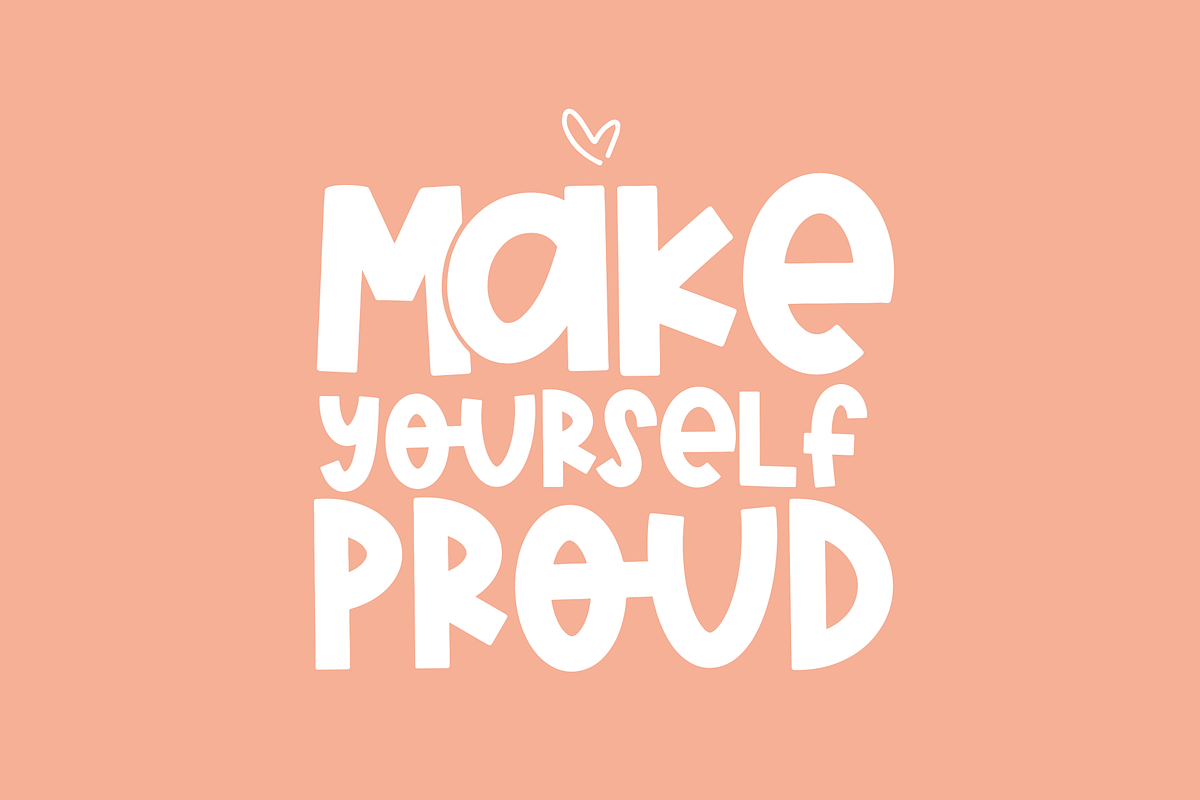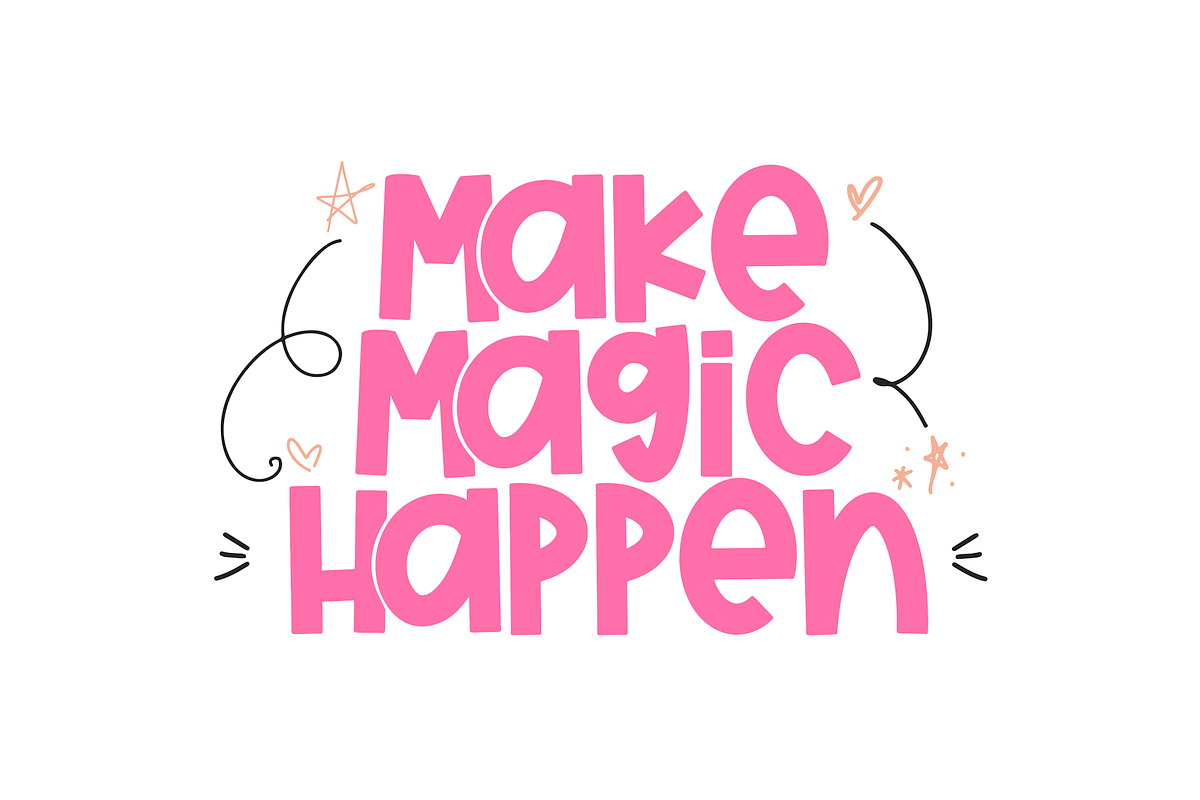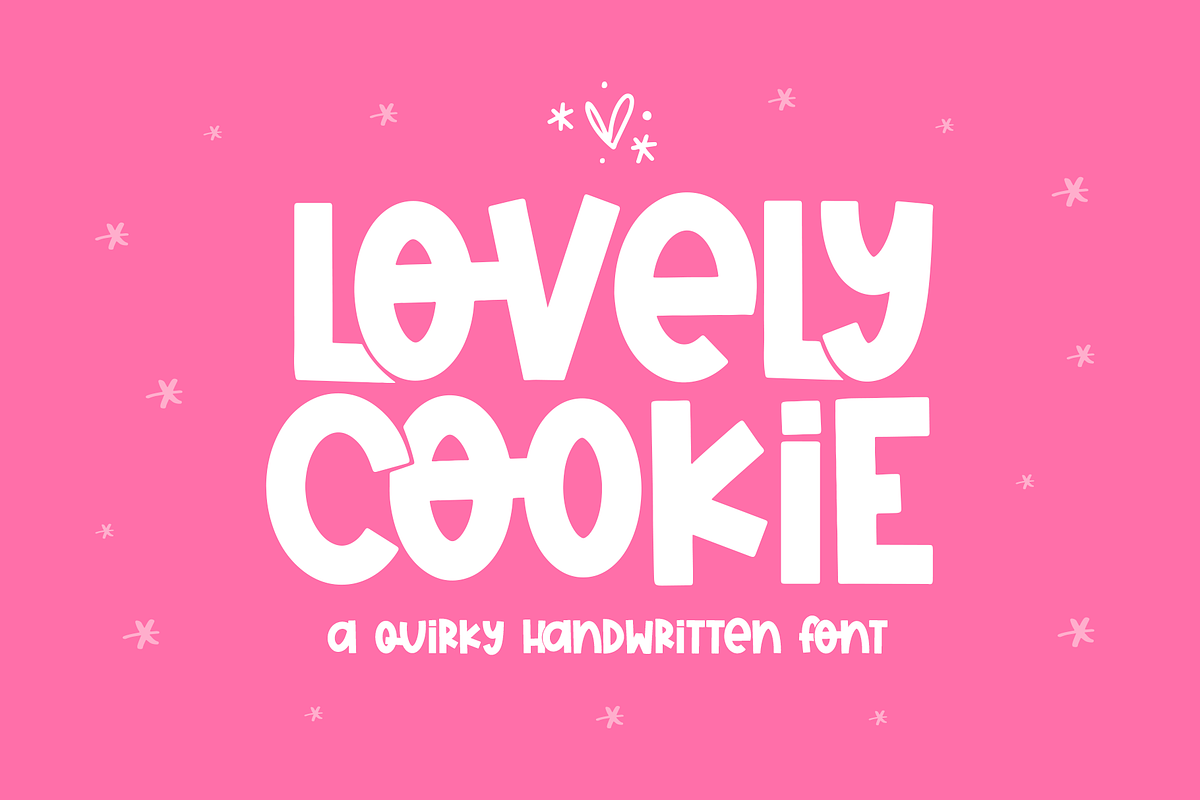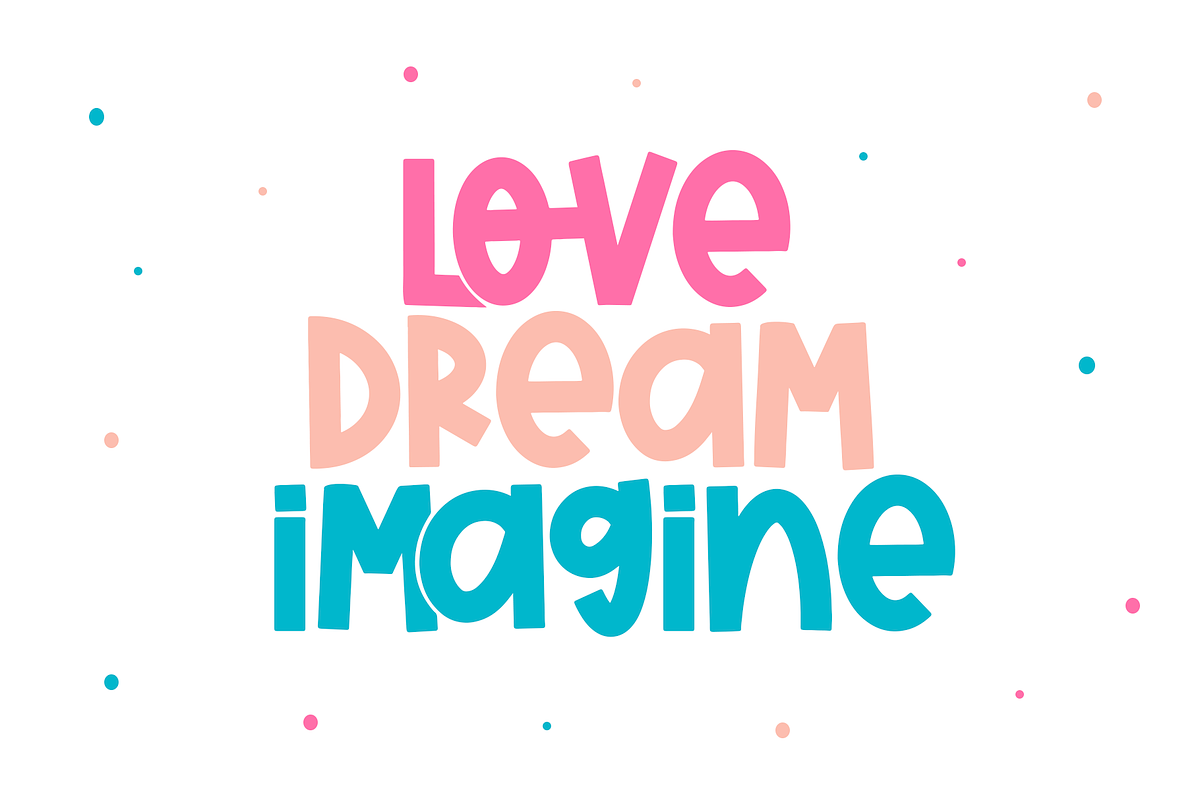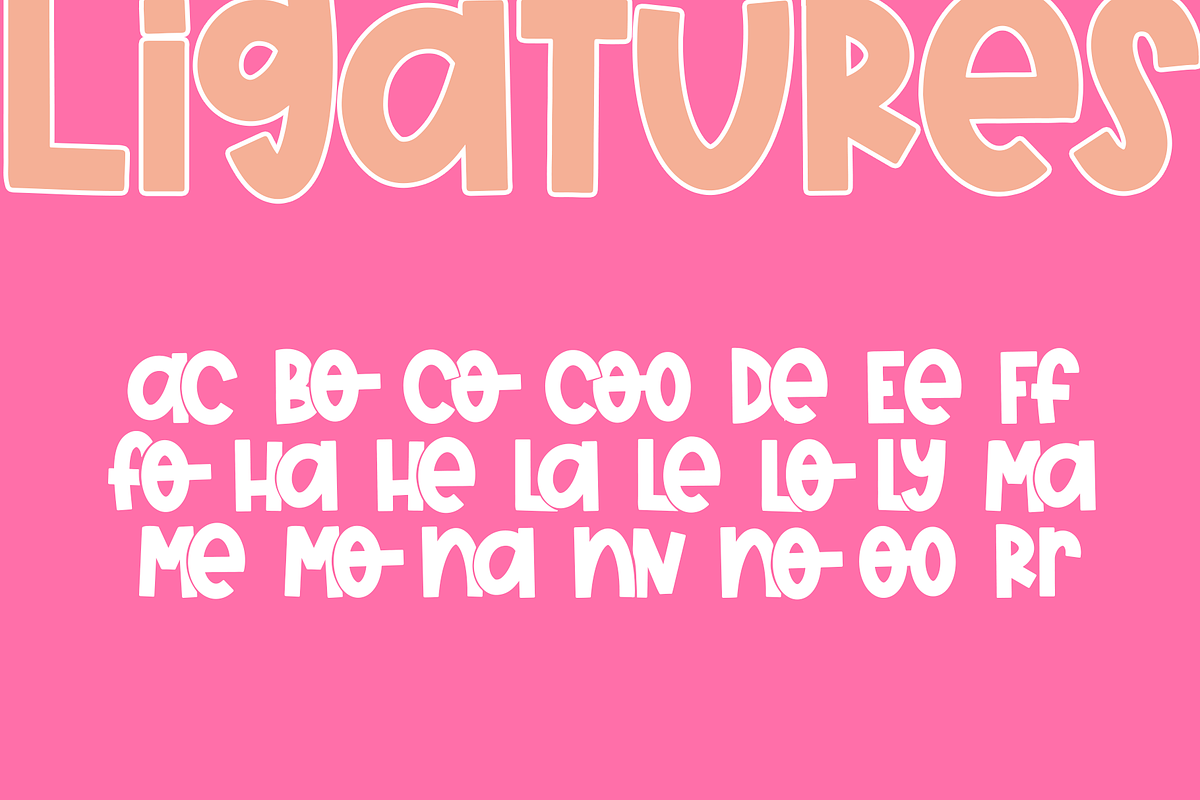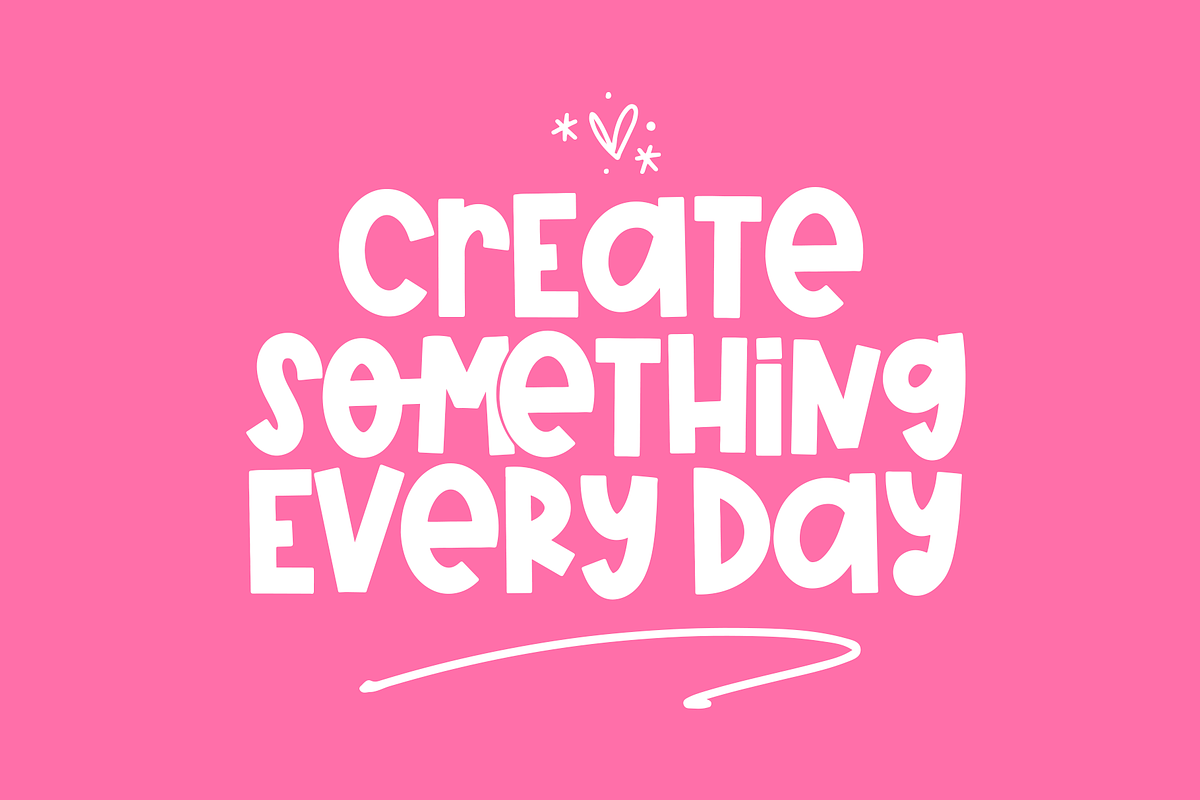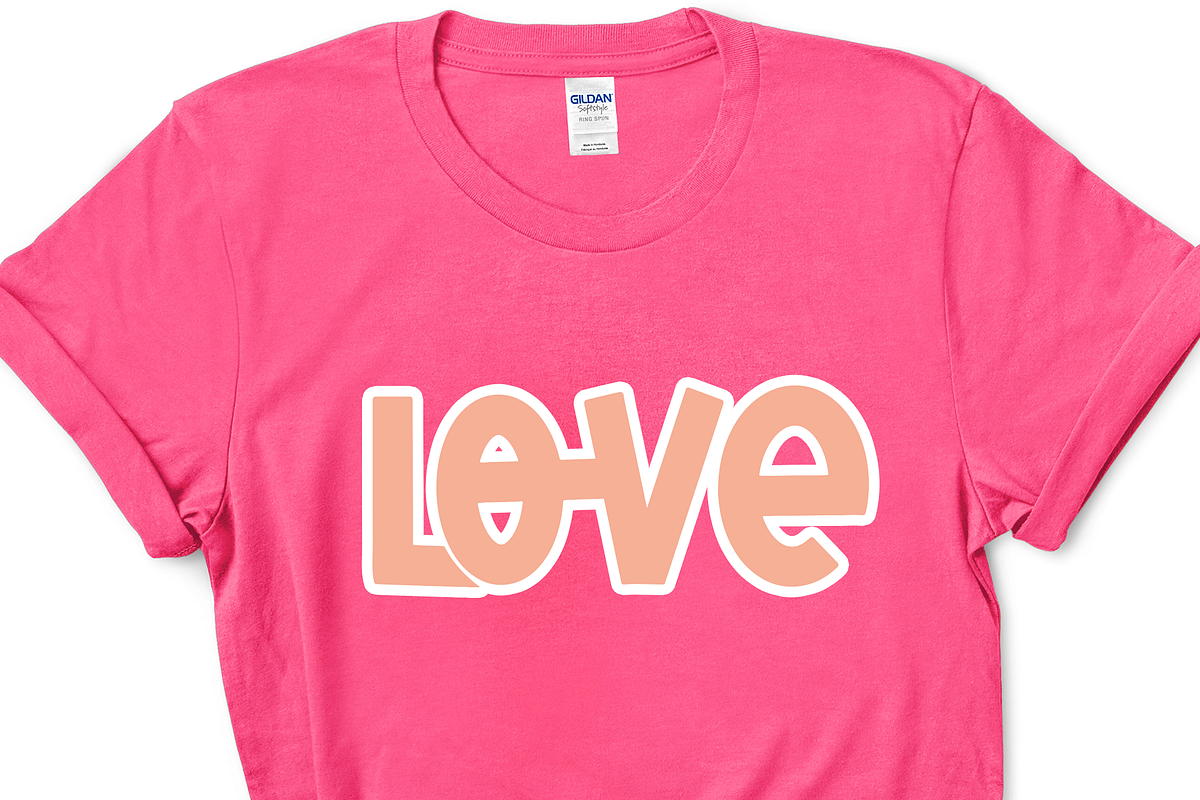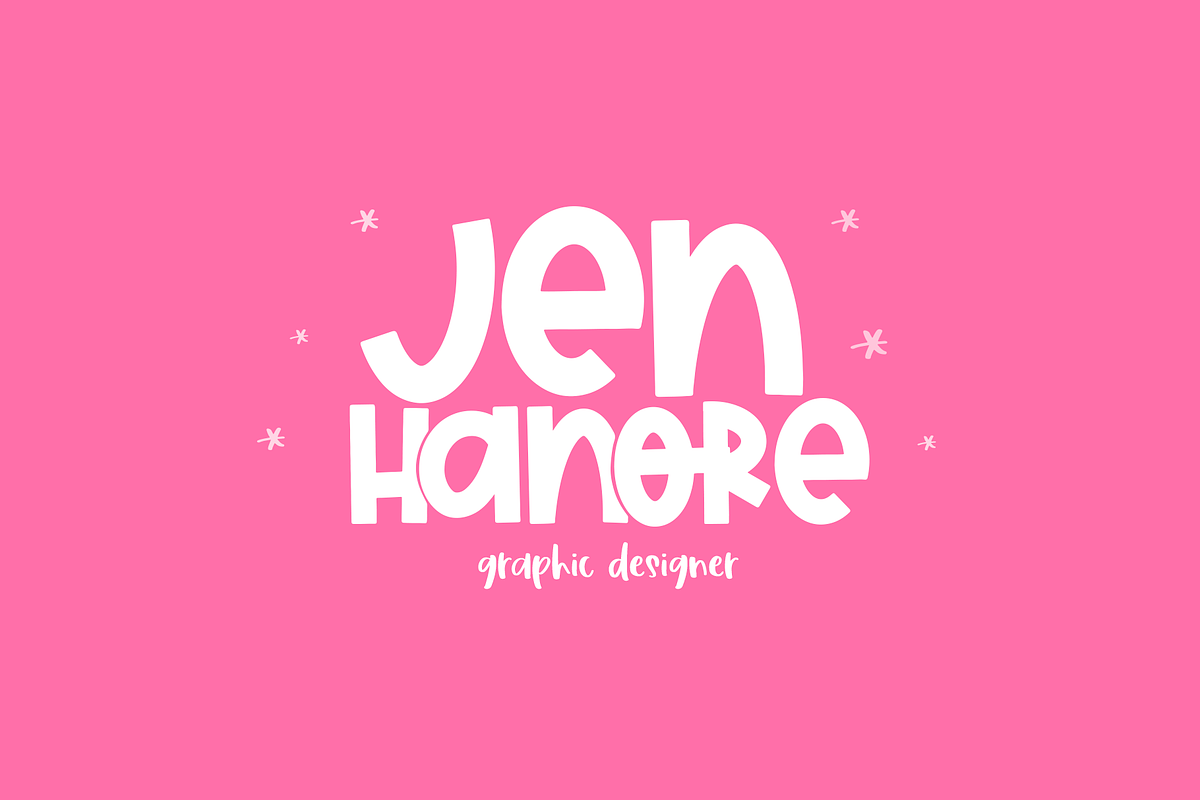
Lovely Cookie | Handwritten Font
Lovely Cookie is a quirky + bold handwritten font! It's a mixed case font with a lot of character!
This font is perfect for quotes, shirt designs, websites, branding, children's designs, svg designs, blogs, logos, invitations and more!
- There are a lot of fun "overlapping" ligatures included!